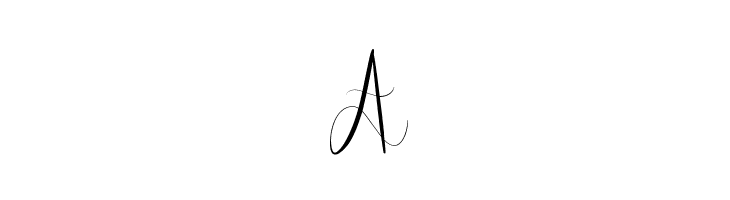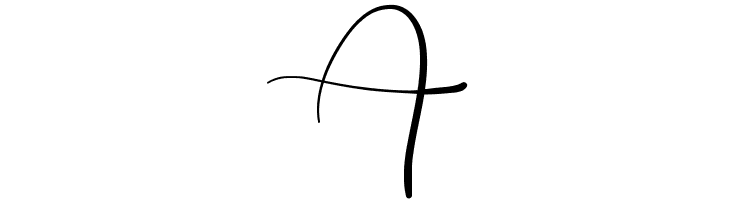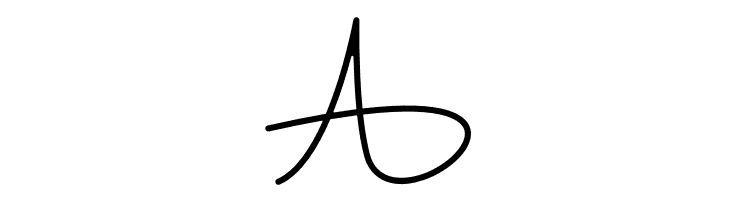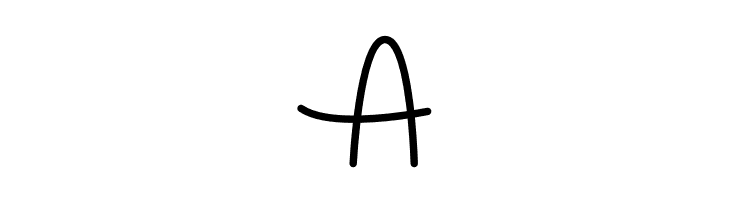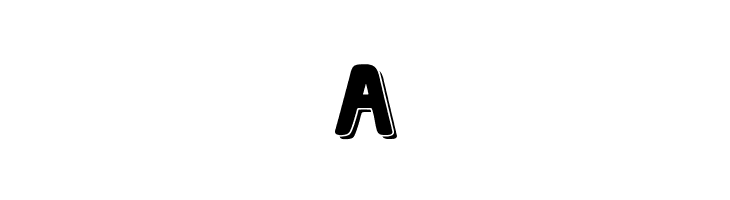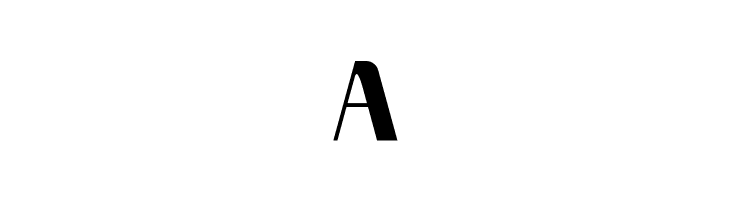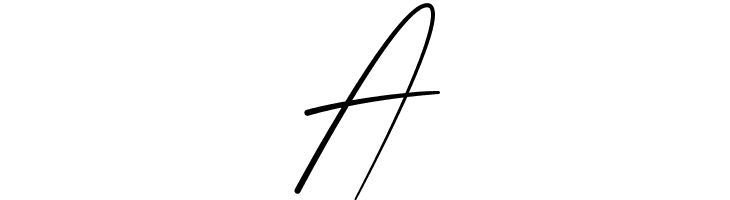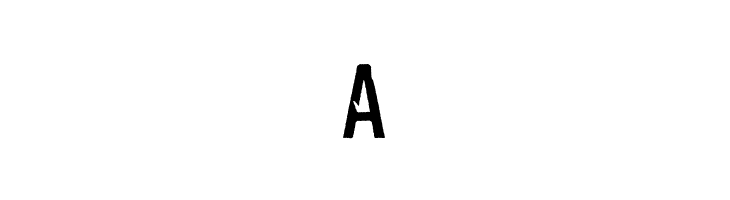
A sophisticated cursive script with elegant, flowing lines.
A bold, dynamic handwritten font with playful, flowing strokes.
A playful, handwritten-style font with smooth, flowing strokes.
Playful, rounded sans-serif with a hand-drawn appearance.
A playful monoline font with a handwritten, whimsical style.
A graceful, handwritten script font with elegant, flowing letters.
A bold serif font with high contrast and a classic yet modern style.
A stylish, handwritten font with elongated, flowing characters and artistic flair.
An elegant, flowing script font with graceful curves and a sophisticated flair.
A modern, sleek font with tall, narrow characters and a vertical emphasis.
A bold, playful font with thick, rounded strokes and a whimsical, retro style.
An elegant script font with flowing, cursive style and intricate swashes.
A sophisticated, elegant handwritten font with flowing cursive strokes and graceful curves.
A playful, rounded font with a youthful, hand-drawn style.
A playful, handwritten script font with bold, flowing characters.
A whimsical, fantasy-themed font with imaginative, decorative characters.
A bold, playful font with a hand-drawn, slightly irregular style.
A bold, distressed font with a vintage, handcrafted appearance.
A bold, expressive script font with fluid, interconnected strokes.
A lively and elegant script font with flowing, cursive letters and dramatic flourishes.
A bold, expressive handwritten font with dynamic strokes and a playful style.
A playful, handwritten-style font with a casual and friendly appearance.
A playful, handwritten font with bold, rounded characters and a casual style.
A whimsical and playful script font with flowing, cursive-like letters.
A playful, handwritten font with smooth curves and a casual style.
A playful, bold font with rounded, thick strokes and a hand-drawn feel.
A rustic, handwritten font with a brush-like texture and playful style.
A tall, narrow, and modern font with clean lines and minimal embellishments.
A tall, narrow font with clean lines and a modern aesthetic.
A playful, handwritten font with a whimsical and dynamic style.
Playful handwritten script font.